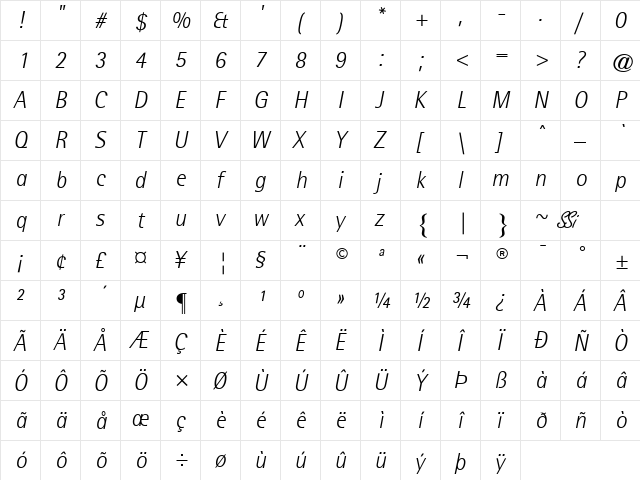
Libre SemiSans Light SSi Light Italic Font Preview
Design Context for Libre SemiSans Light SSi Typeface
Libre SemiSans Light SSi offers clean, dependable letterforms without strong stylistic allegiance, making it a practical choice for designers who need flexibility. The slanted form adds forward momentum and visual energy. Its slender proportions lend an understated elegance to any composition.
Pro Tip: Try Libre SemiSans Light SSi for annotation and caption copy alongside an upright companion — the contrast in angle creates a dynamic but ordered typographic system.